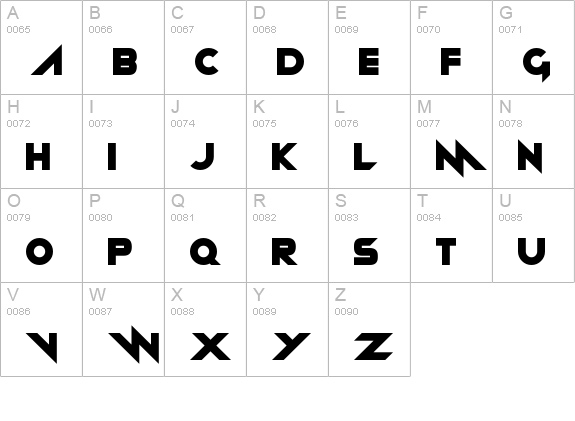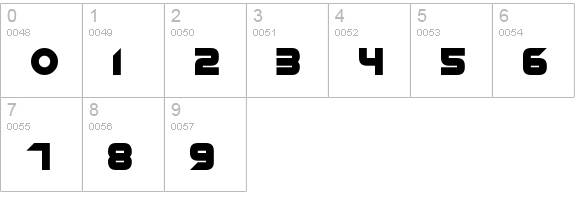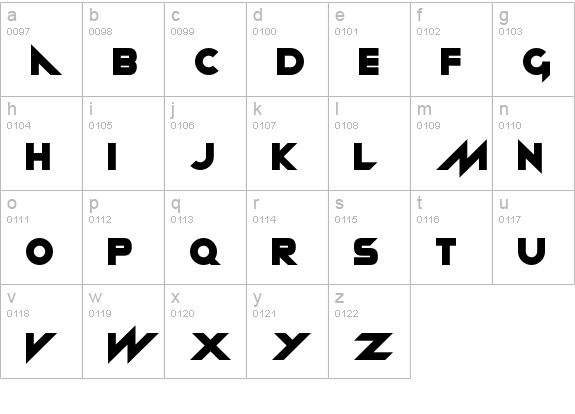
Introducing Neon Machine font, a futuristic and eye-catching typeface that brings a vibrant neon glow to any design project. This unique font combines sleek lines and bold shapes to create a modern aesthetic that is perfect for branding, advertising, and more. The Neon Machine font is free to download at FontsMarket.com, making it easily accessible for designers looking to add a touch of electrifying style to their creations. With its neon-inspired design and versatility, this font is sure to make a bold statement and captivate audiences. Let Neon Machine font illuminate your designs and take them to the next level. Download it now and unleash the power of neon typography in your projects!